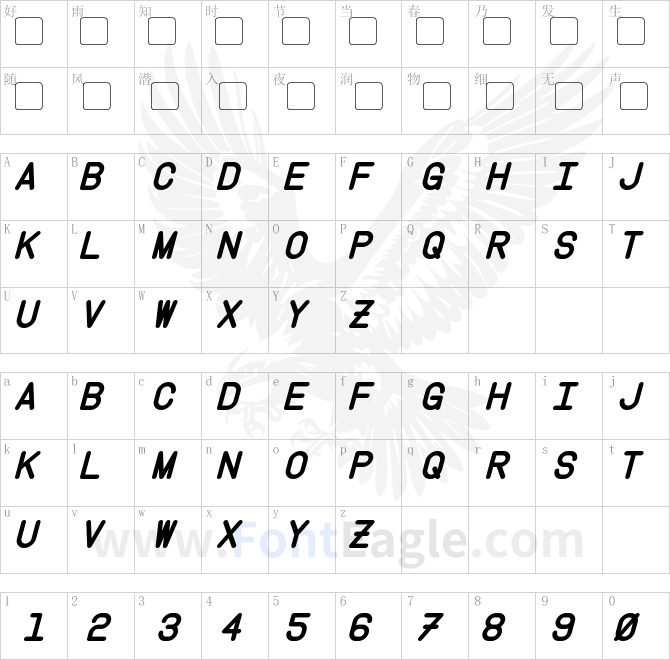
- Font name:Instruction
- Font Subfamily ID:Instruction Bold Italic:Version 1.10
- Font Full Name:Instruction Bold Italic
- Font Version:Version 1.10 February 12, 2015
- Postscript:Instruction-BoldItalic